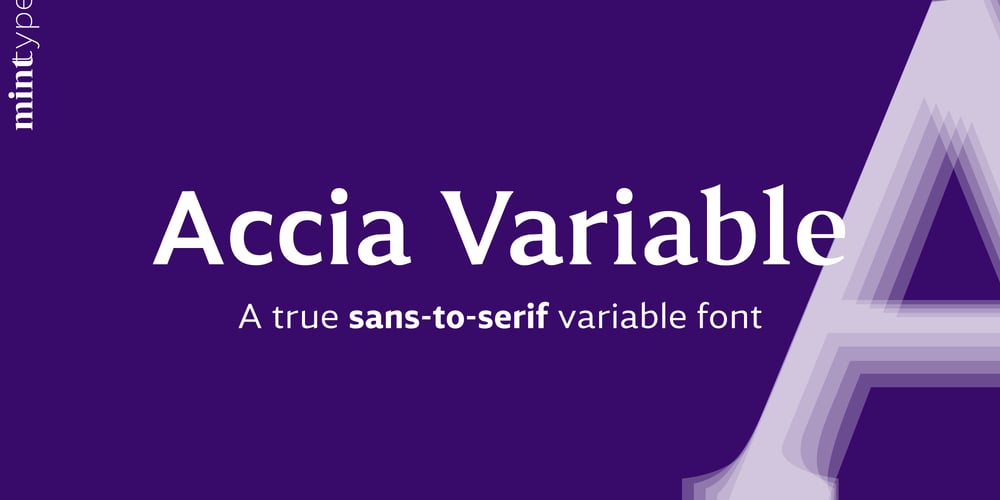
Accia Variable Font Family was designed by Andriy Konstantynov and published by Mint Type. Accia Variable contains 2 styles and family package options. Accia is one of the world’s first true sans-to-serif variable fonts. Its weight axis ranges form Thin to Extra Bold, and its serif axis ranges from Sans to Forte. Accia is designed to be perfectly usable at every possible point of the design space, and its different instances work together perfectly as an infinitely flexible type system.The typeface contains a total of 879 glyphs supporting multiple Latin-based and Cyrillic- based languages, together with added sets of numbers and punctuation, small capitals, ligatures and other commonly supported OpenType features.Accia is also available as separate font families.